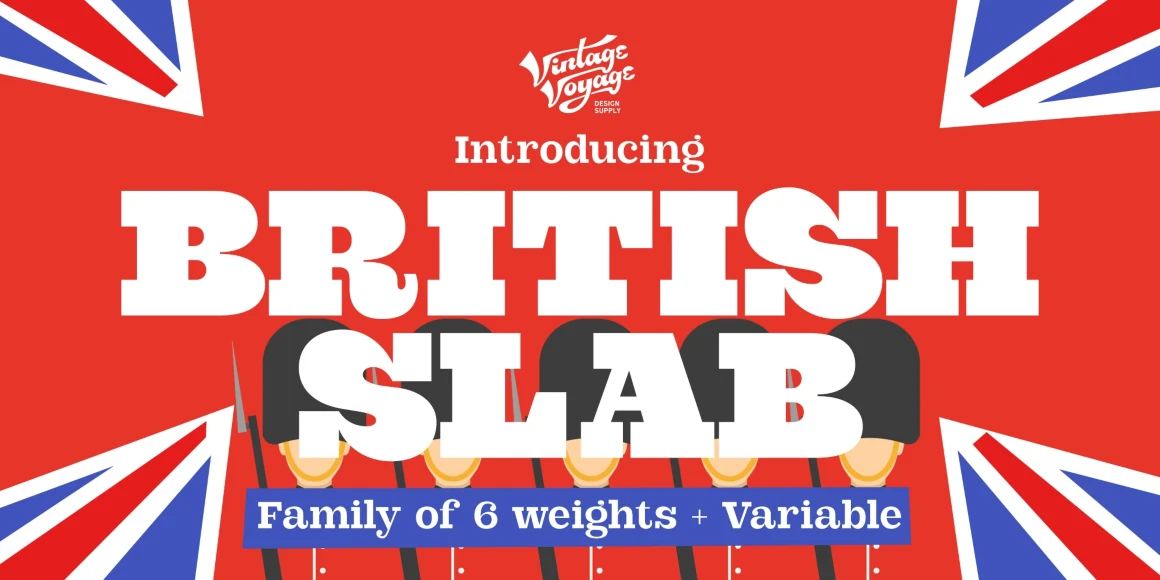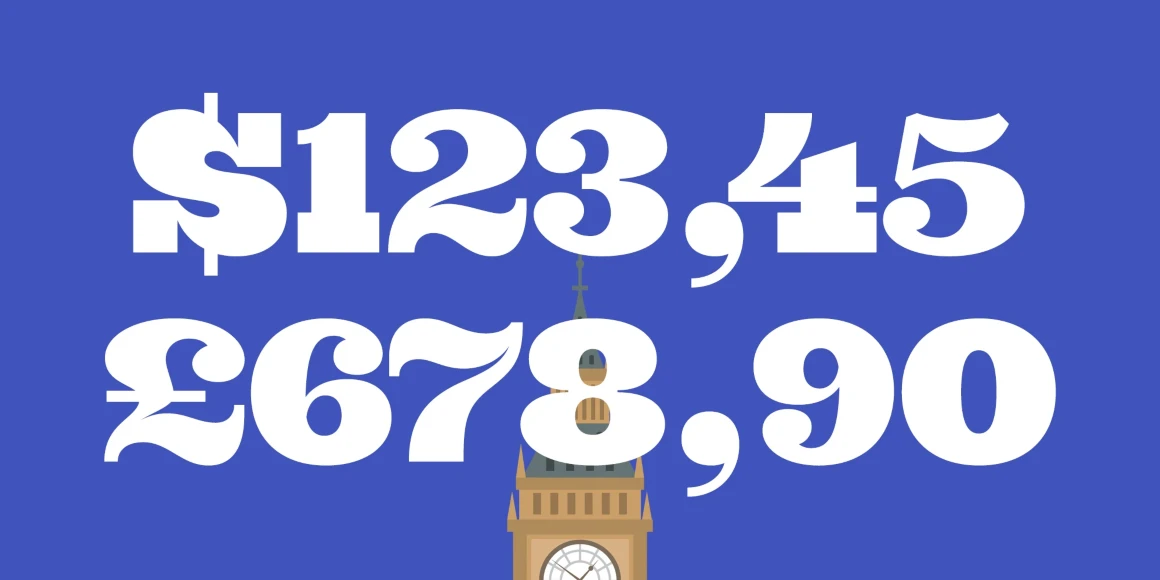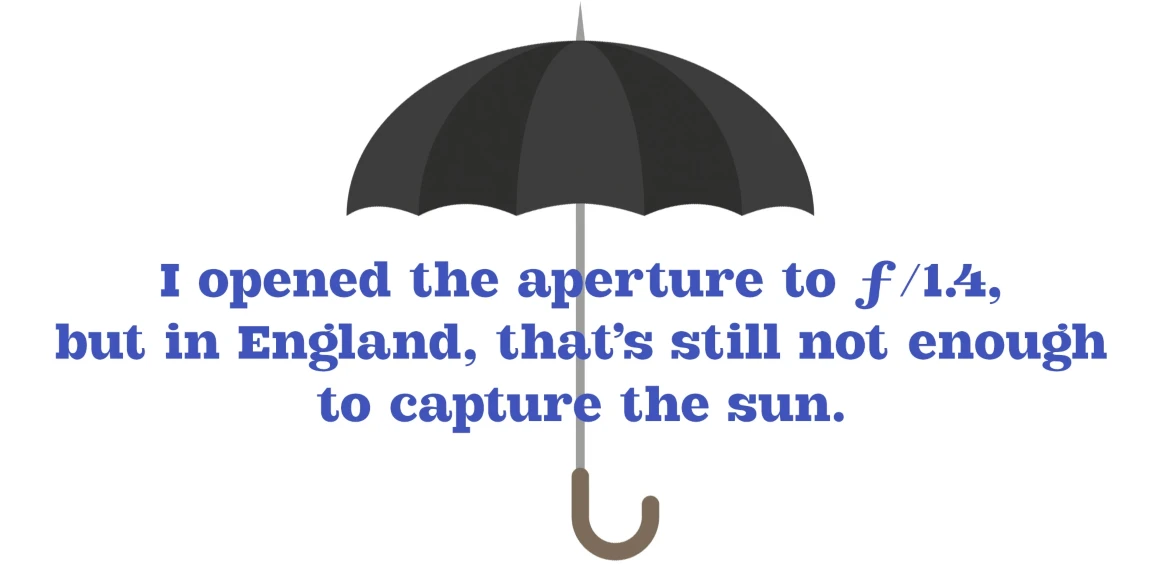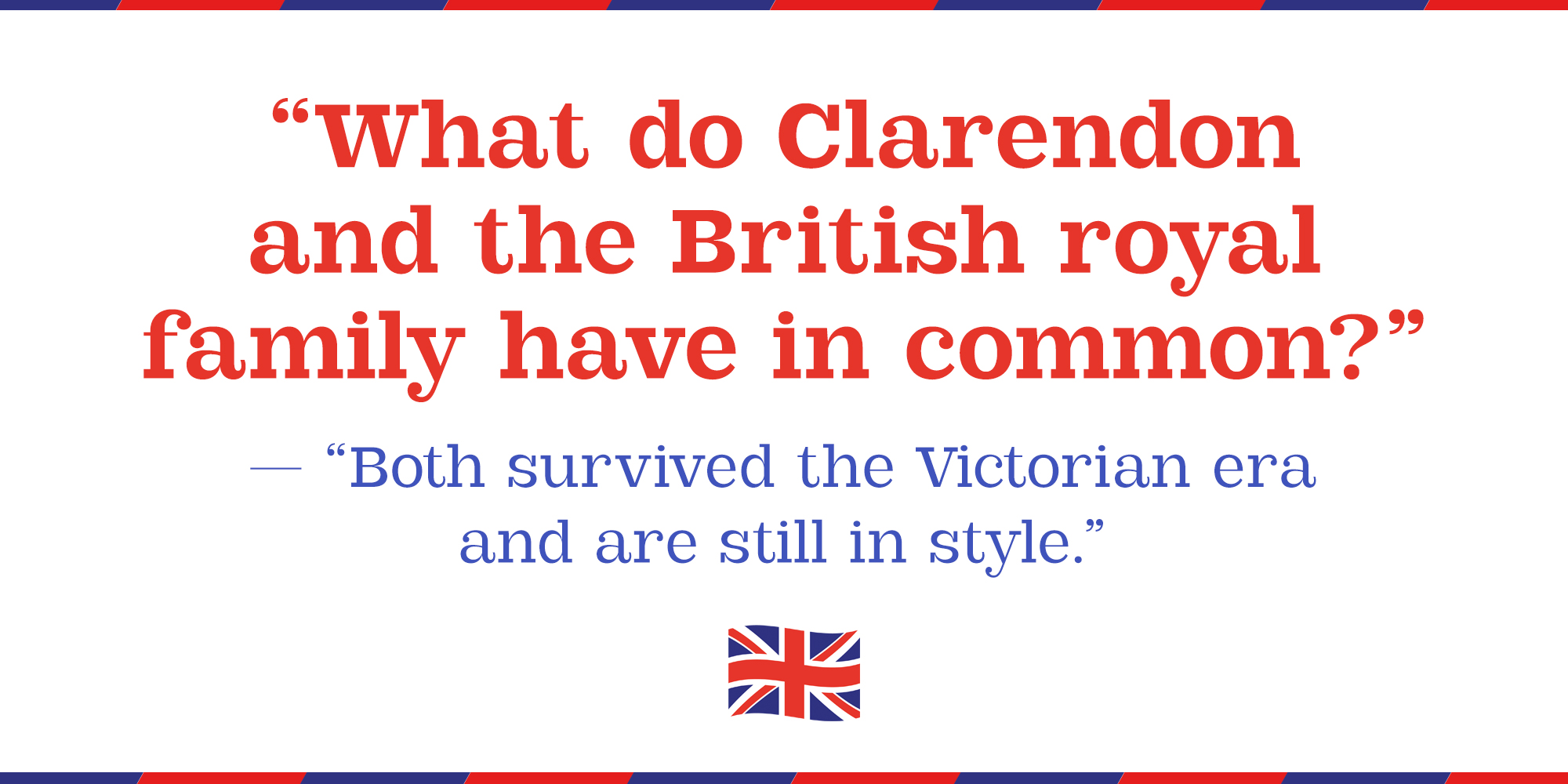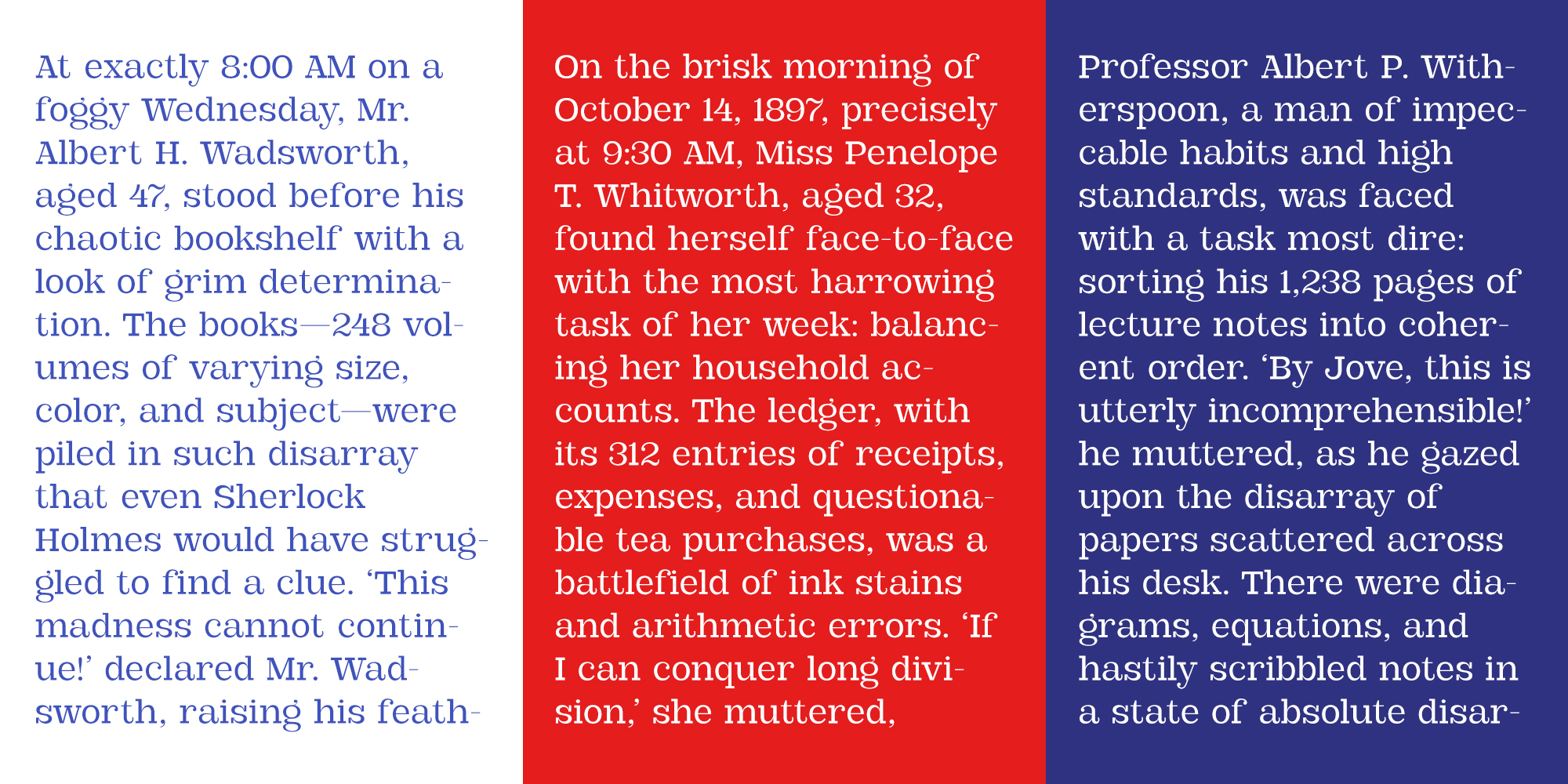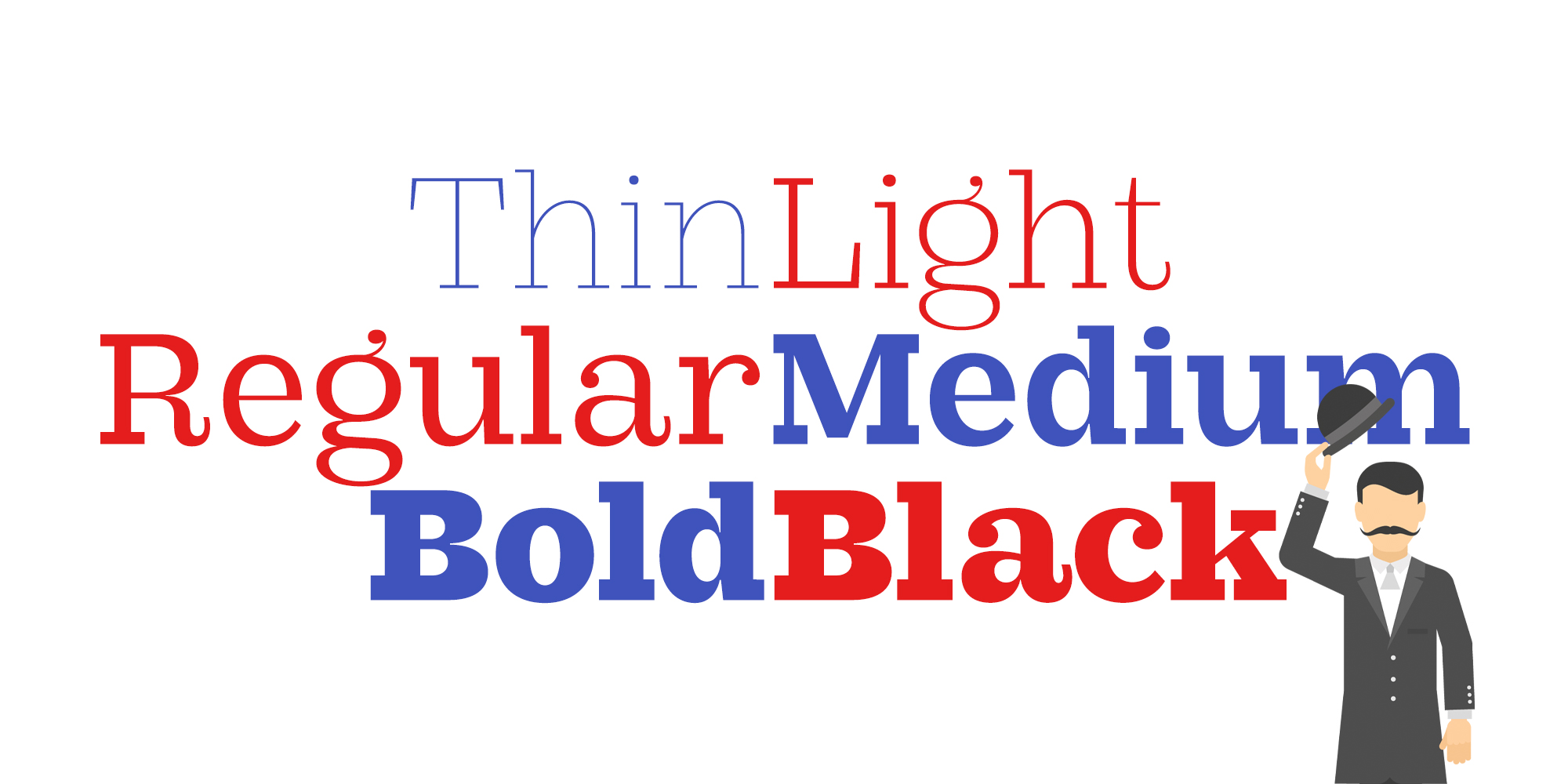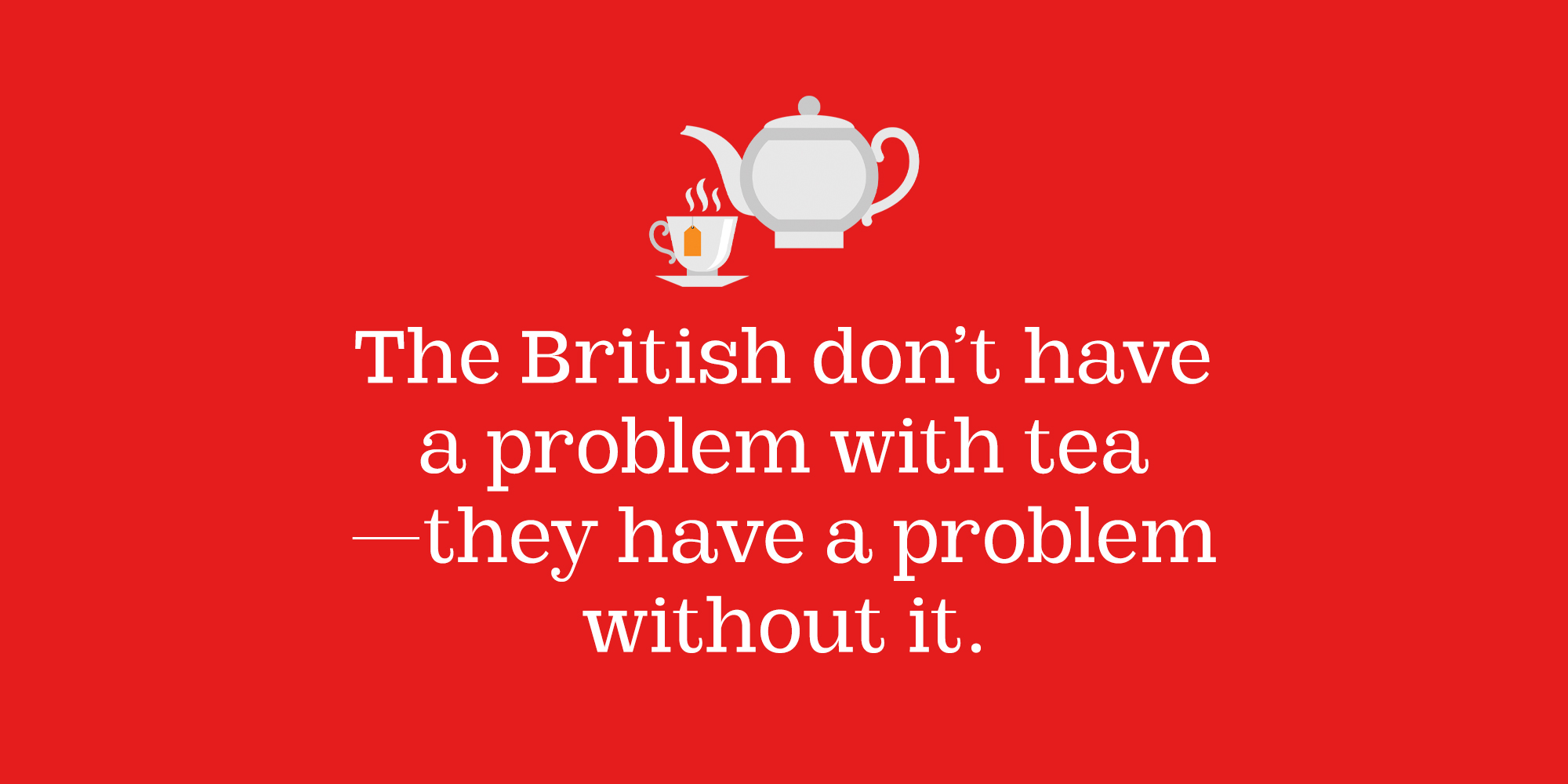
British Slab
British Slab is a multi-purpose slab serif inspired by early 20th-century advertisements and posters. Sitting between the unbracketed geometry of an Egyptian and the refined curves of a Clarendon, it balances bold Industrial Age strength with dynamic Mid-century charm. Designed for both text and display, it commands attention in headlines, event posters, VIP invitations, food packaging, and media branding. British Slab comes in six versatile weights and a flexible variable format.